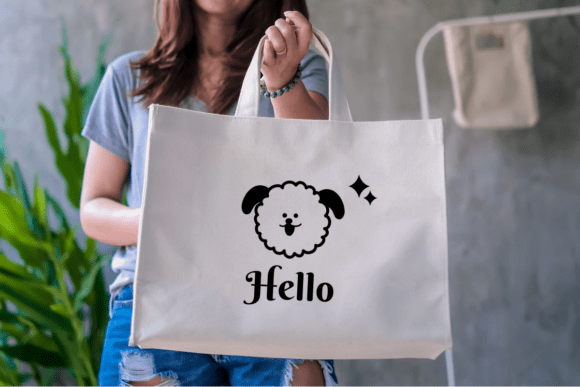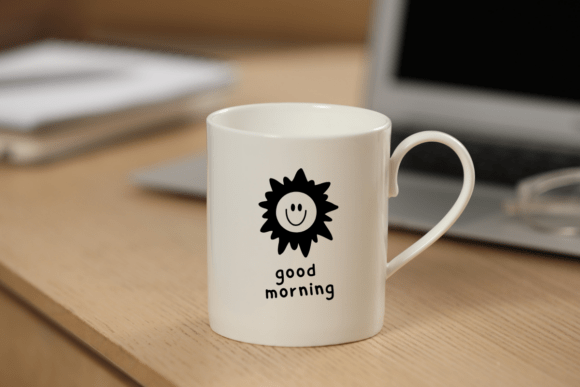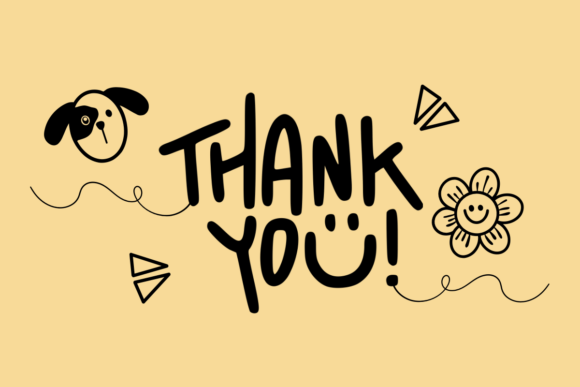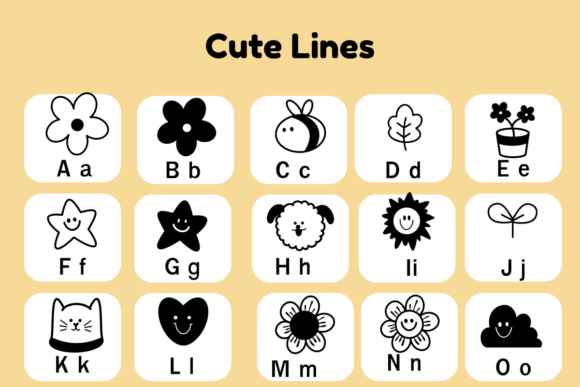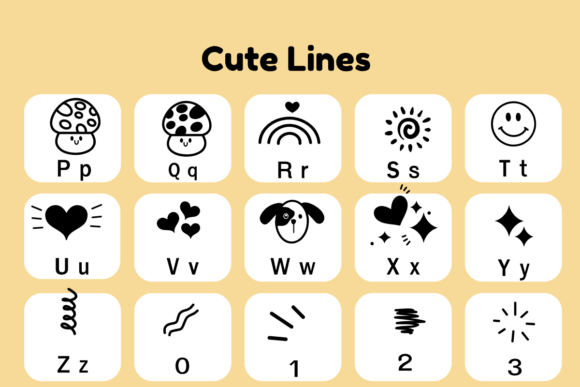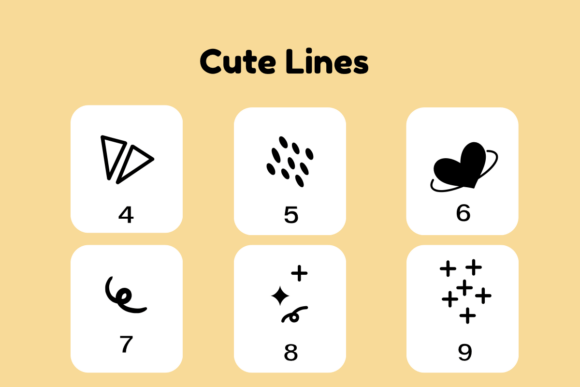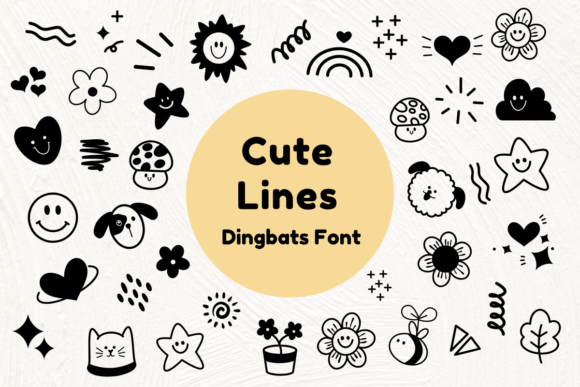
Cute Lines Font: The Perfect Addition to Your Creative Projects
Are you a designer, crafter, or DIY enthusiast looking for a unique and playful font to add to your creative projects? Look no further than Cute Lines, a charming dingbats font that’s sure to bring a smile to your face. In this article, we’ll explore the features and benefits of Cute Lines, and show you how to incorporate it into your designs for adorable results.
What is Cute Lines Font?
Cute Lines is a delightful dingbats font that’s designed to add a touch of whimsy and friendliness to your creative projects. Dingbats fonts, also known as symbol fonts, are a type of font that features graphical symbols, shapes, and icons rather than traditional letters and numbers. Cute Lines is a carefully crafted collection of cute and playful symbols, including lines, shapes, and icons that can be used to add visual interest and personality to your designs.
Features of Cute Lines Font
• Cute and Friendly Design: Cute Lines features a range of adorable symbols, including hearts, stars, animals, and more, all designed with a playful and friendly vibe.
• Easily Readable: Despite its playful design, Cute Lines is surprisingly easy to read, making it perfect for use in a variety of creative projects, from crafts to digital designs.
• Highly Versatile: With a wide range of symbols and icons to choose from, Cute Lines can be used in a variety of contexts, from scrapbooking and journaling to social media graphics and website design.
How to Use Cute Lines Font in Your Creative Projects
Cute Lines is an incredibly versatile font that can be used in a wide range of creative projects. Here are a few ideas to get you started:
• Scrapbooking and Journaling: Add a touch of whimsy to your scrapbook pages and journals with Cute Lines. Use the font to create cute borders, headers, and icons to enhance your designs.
• Social Media Graphics: Use Cute Lines to create adorable social media graphics, including Facebook posts, Instagram stories, and Twitter headers.
• DIY Crafts: Add a personal touch to your DIY crafts, such as handmade cards, gift tags, and decorations, with Cute Lines.
• Website Design: Use Cute Lines to add a playful touch to your website design, including headers, footers, and icons.
Tips and Tricks for Using Cute Lines Font
Here are a few tips and tricks to help you get the most out of Cute Lines:
• Experiment with Different Sizes and Colors: Don’t be afraid to experiment with different sizes and colors to add visual interest to your designs.
• Combine with Other Fonts: Cute Lines pairs well with a wide range of fonts, so feel free to combine it with other fonts to create a unique look.
• Use as a Accent Font: Use Cute Lines as an accent font to add a touch of personality to your designs, while keeping your main font more traditional.